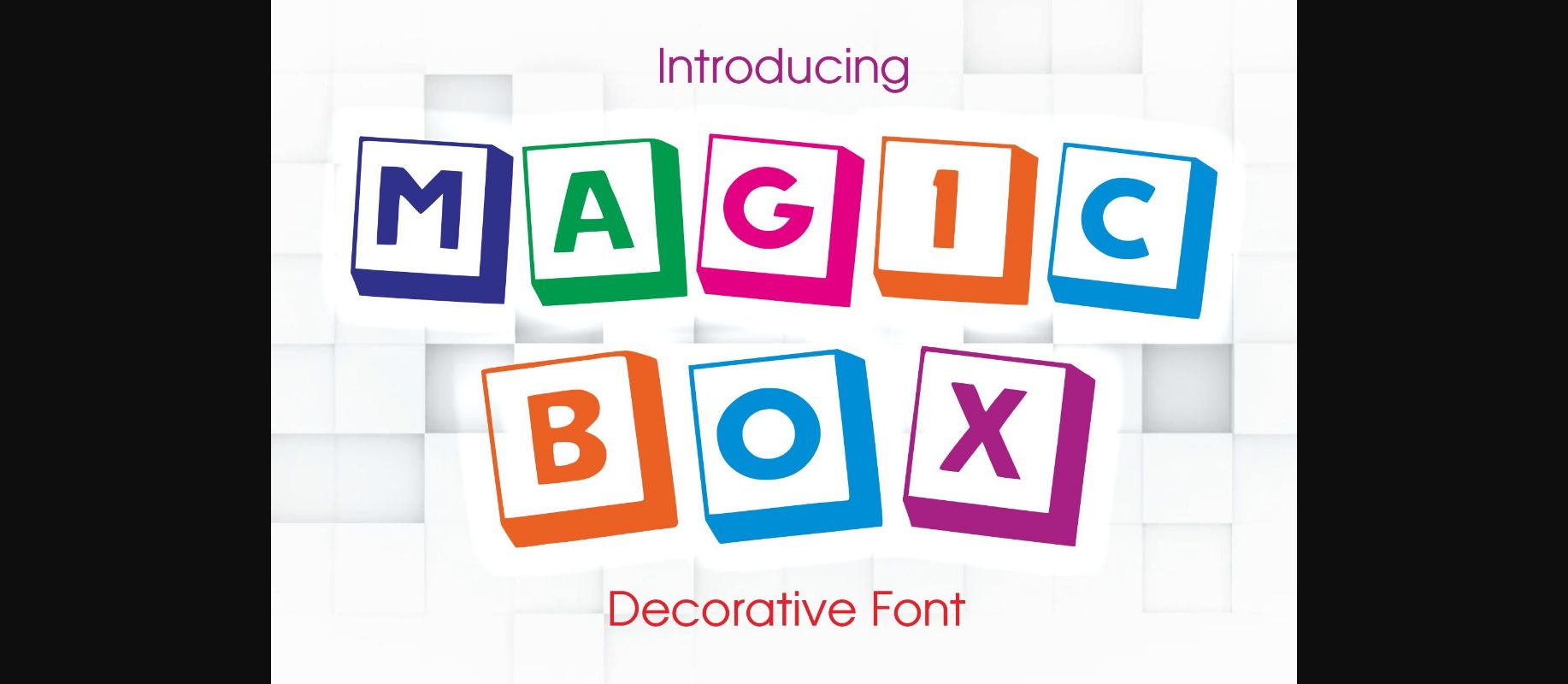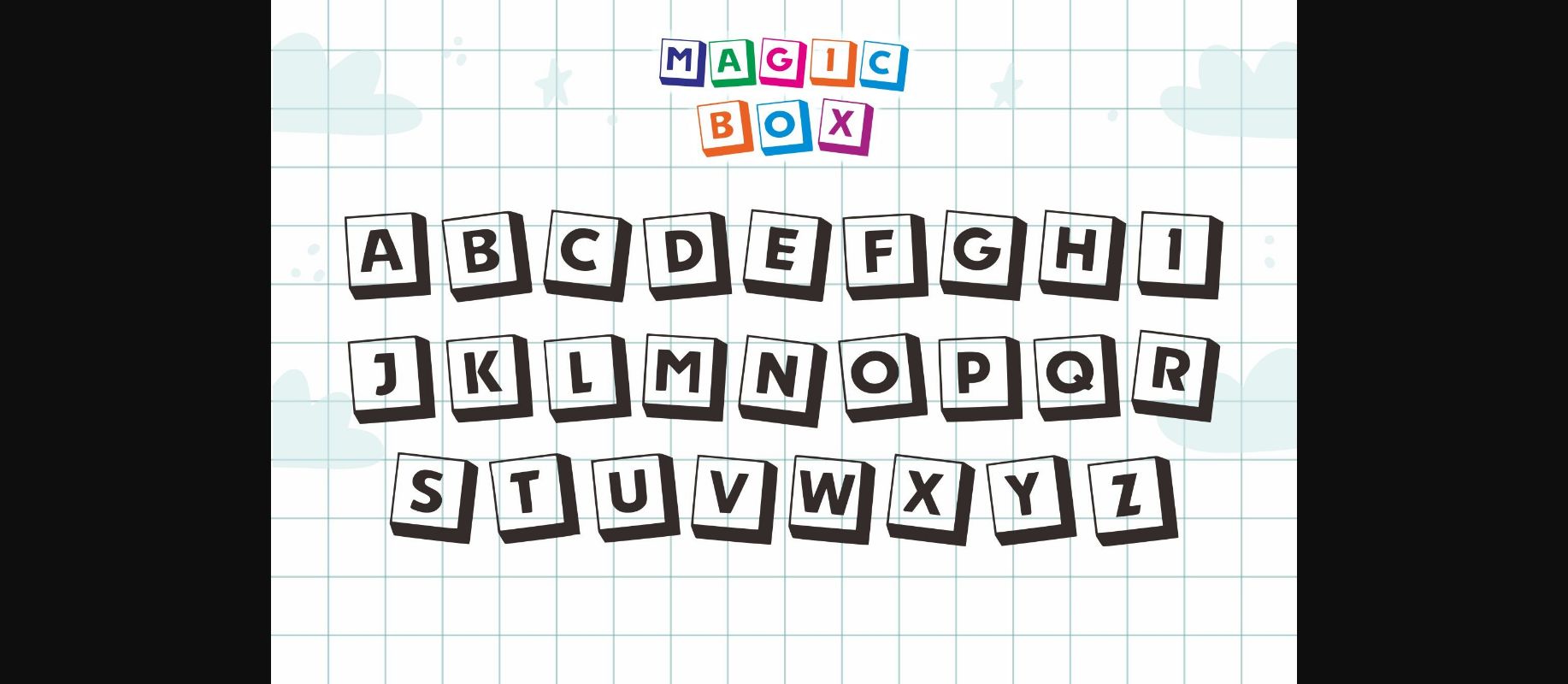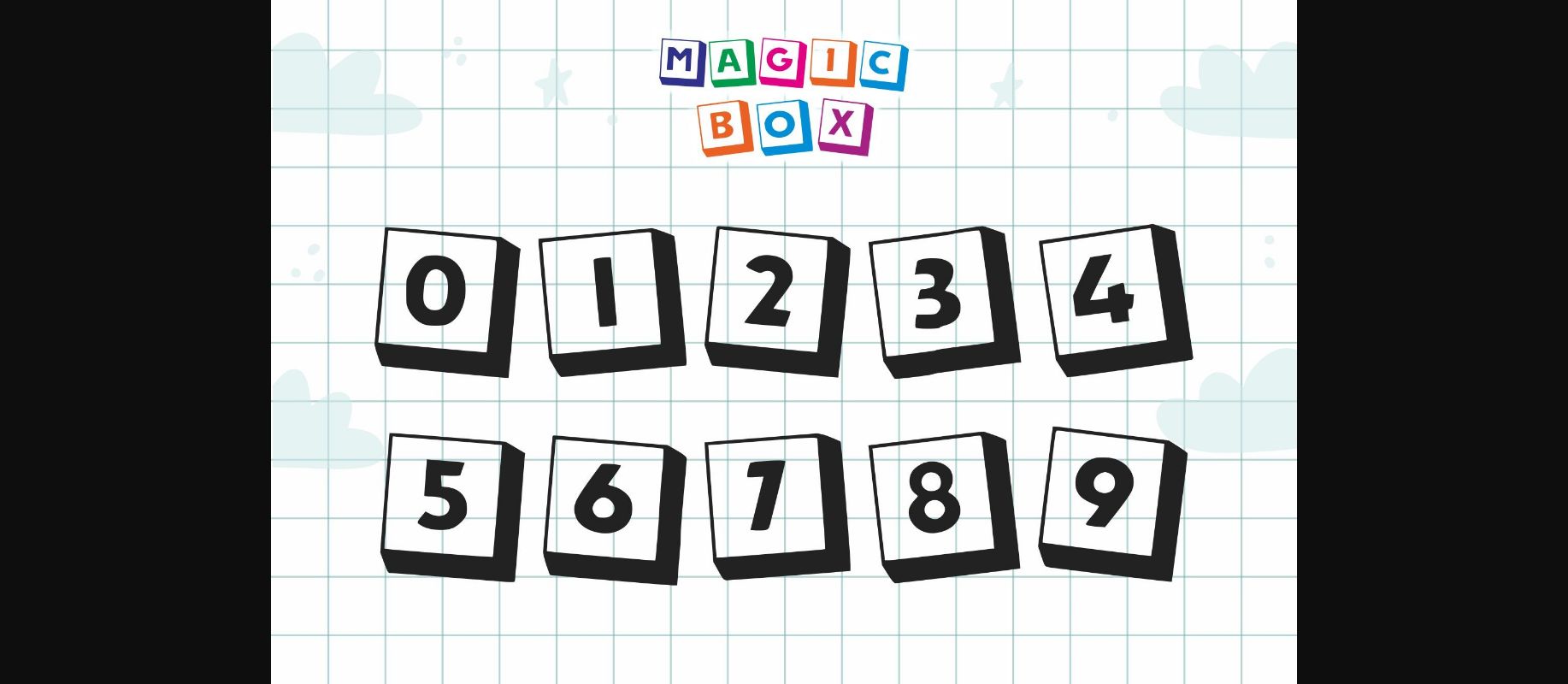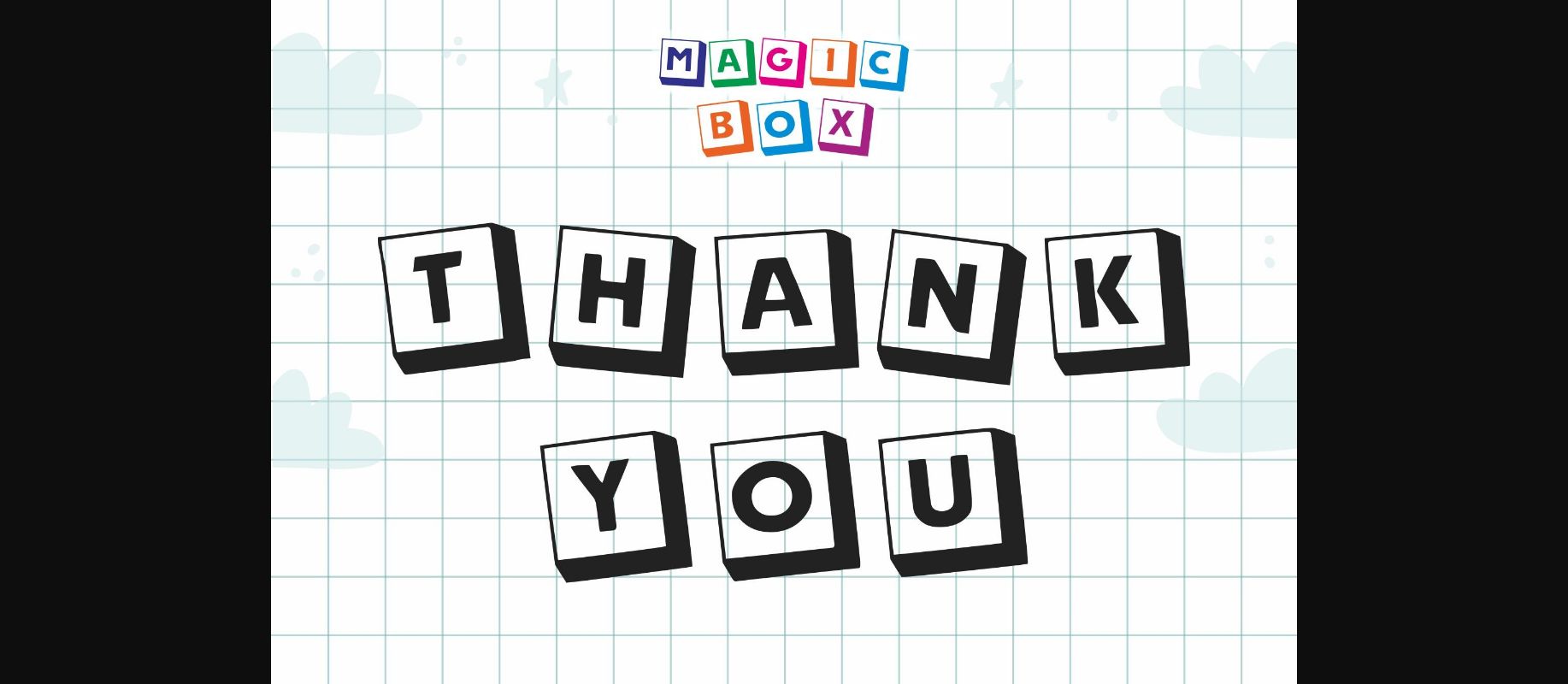
HomeDecorative FontsMagic Box Font Decorative Fonts Magic Box Font FacebookXPinterestWhatsApp 1 of 6 ... Magic Box Font Poster 2... Magic Box Font Poster 3... Magic Box Font Poster 4... Magic Box Font Poster 5... Magic Box Font Poster 6... About Magic Box Font Magic Box is a unique and aesthetic decorative font. You can use this font on prints or other creations that need a different touch & that you can expand on. DOWNLOAD NOW People also explored Bones Bony Font Floralia Font Jentera Font New Year Wishes Font Tangatdraw Font Behind Violet Eyes Font Magnitude Script Font Kamies Font Gathering Font 421 0 TagsMagic Box Font Previous articleCraftsman FontNext articleMama Font LEAVE A REPLY Cancel reply Comment: Please enter your comment! Name:* Please enter your name here Email:* You have entered an incorrect email address! Please enter your email address here Website: Save my name, email, and website in this browser for the next time I comment. Personal Use Free Earwig Factory Personal Use Free Read more about this font Huntry Personal Use Free Read more about this font Harmony Personal Use Free Read more about this font Mail Ray Stuff Personal Use Free Read more about this font BLOG Free vs Paid Fonts: Why Investing in Premium Fonts Is Worth It Free vs Paid Fonts: Why Premium Fonts Are Worth It in 2025 The debate of free vs paid fonts continues in the design world. While... How to Install and Use Fonts on Windows, macOS, and Web Projects Best Fonts for T-Shirt Design – Top 2025 Picks Fonts That Capture the Spirit of New York City